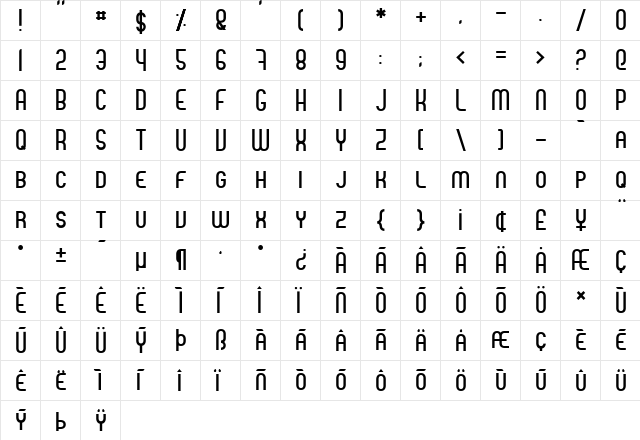
Madame Butterfly Regular
| Foundry | Aldo Ojeda Campos |
| Designer | Aldo Ojeda Campos |
Design Context for Madame Butterfly Typeface
Madame Butterfly offers clean, dependable letterforms without strong stylistic allegiance, making it a practical choice for designers who need flexibility.